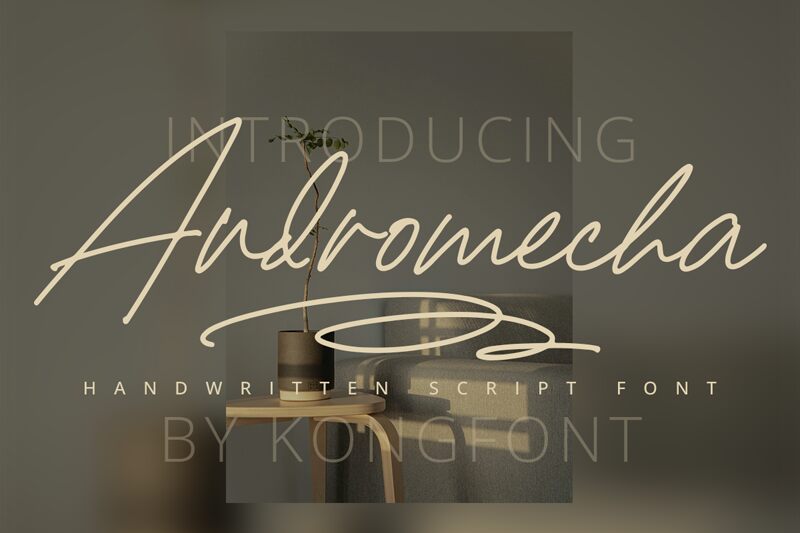
Andromecha font by Kong Font combines the elegance of a signature style with the personal touch of handwritten aesthetics. This light, condensed font exudes sophistication and charm, perfect for creating striking visuals that demand attention. With its fluid lines and graceful form, Andromecha is ideal for projects seeking a sense of refinement and individuality.
Whether you're designing logos, invitations, or social media graphics, Andromecha offers versatility and flair. Its unique characteristics make it a free font worth downloading for anyone looking to infuse projects with creativity and personality.